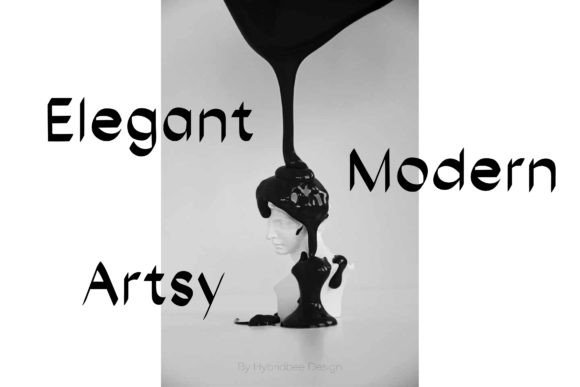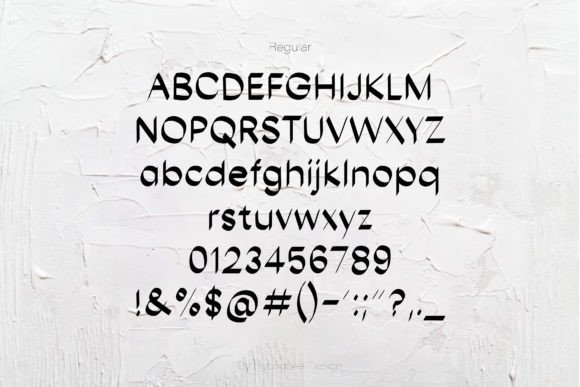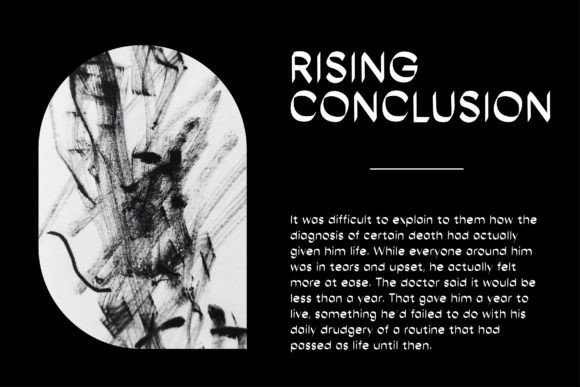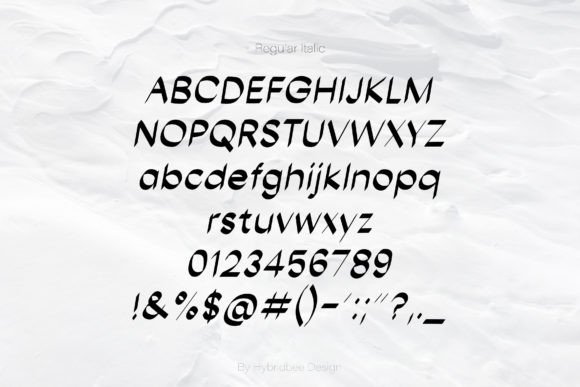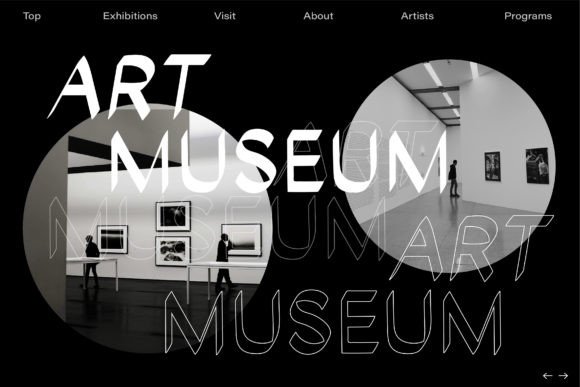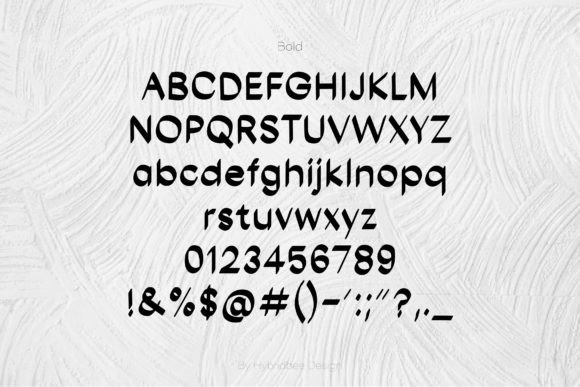
Eutony Font: Elevate Your Designs with a Modern and Artsy Touch
In the world of typography, fonts play a crucial role in conveying the tone and aesthetic of a design. For designers and crafters looking to add a fresh and cool touch to their projects, Eutony Font is an excellent choice. This sans serif font boasts a modern and artsy look, making it perfect for a wide range of applications, from posters and headlines to branding, packaging, logos, web design, and more.
What is Eutony Font?
Eutony Font is a stylish and unique sans serif font that has gained popularity among designers and crafters. Its clean and minimalist design makes it an excellent choice for projects that require a modern and sophisticated look. The font’s sleek lines and curves give it a distinctive appearance that sets it apart from other fonts.
Key Features of Eutony Font
- Modern and Artsy Look: Eutony Font has a unique and stylish appearance that is perfect for designers and crafters looking to add a fresh touch to their projects.
- Sans Serif Design: The font’s clean and minimalist design makes it easy to read and versatile for various applications.
- High Versatility: Eutony Font can be used for a wide range of projects, including posters, headlines, branding, packaging, logos, web design, and more.
- Easy to Read: The font’s clear and legible design ensures that your message is conveyed effectively.
Uses of Eutony Font
Eutony Font is a versatile font that can be used for various design projects. Here are some of the ways you can use this font:
- Posters and Flyers: Create eye-catching posters and flyers with Eutony Font’s modern and artsy look.
- Headlines and Titles: Use Eutony Font to create bold and stylish headlines and titles for your designs.
- Branding and Logo Design: Establish a strong brand identity with Eutony Font’s unique and stylish appearance.
- Packaging Design: Add a fresh and cool touch to your packaging designs with Eutony Font.
- Web Design: Use Eutony Font to create modern and responsive web designs that engage your audience.
Why Choose Eutony Font?
With so many fonts available, why choose Eutony Font? Here are some reasons why Eutony Font stands out:
- Unique and Stylish Appearance: Eutony Font has a distinctive appearance that sets it apart from other fonts.
- High Quality: The font is designed with high-quality craftsmanship, ensuring that it looks great in any design.
- Versatile: The font can be used for a wide range of projects, making it a great addition to any design library.
Tips for Using Eutony Font
Here are some tips for using Eutony Font effectively:
- Pair with Other Fonts: Experiment with pairing Eutony Font with other fonts to create a unique and stylish look.
- Use Different Weights: Use different weights of Eutony Font to create visual hierarchy and add depth to your designs.
- Experiment with Colors: Try out different colors and gradients to add a pop of color to your designs.
Eutony Font is a modern and artsy sans serif font that is perfect for designers and crafters looking to add a fresh and cool touch to their projects. With its unique and stylish appearance, high versatility, and ease of use, Eutony Font is an excellent choice for a wide range of design applications. Whether you’re creating posters, headlines, branding, packaging, logos, web design, or more, Eutony Font is sure to elevate your designs to the next level.